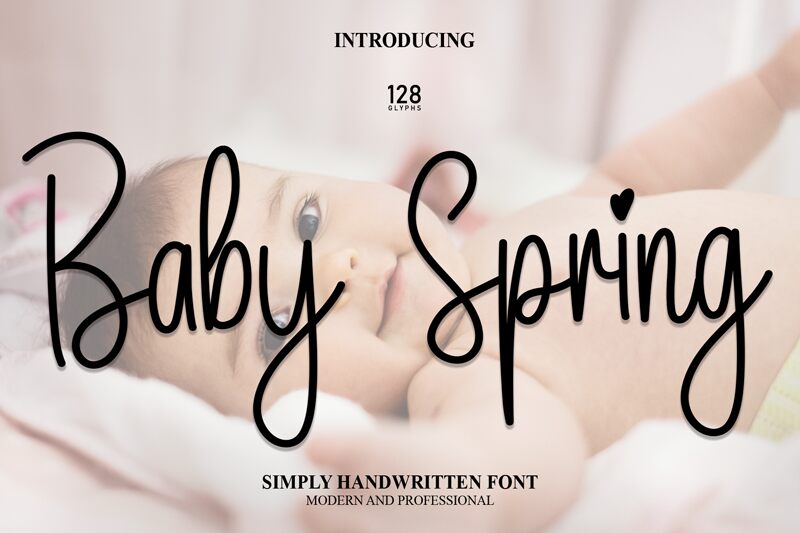
Baby Spring
Baby Spring, a delightful creation by Scratchones, exudes a sense of freshness and whimsy that can only be captured by the most sincere handwritten strokes. Its light weight lends an airy, delicate touch to the design, making it as fleeting and gentle as a spring breeze. The playful curves and flowing connections between letters mimic the authenticity of personal handwriting, infusing every word with personality and warmth.
Perfect for invitations, greeting cards, and branding projects that require a touch of intimacy and charm, Baby Spring invites your audience into a world crafted with carefree elegance. This font's aesthetic appeals to those seeking to convey softness and approachability in their designs while maintaining legibility.
Embrace the creative potential of Baby Spring for an array of applications where you wish to impart lightheartedness without sacrificing sophistication. Whether it's evoking the laughter of sunny days or capturing the tenderness of a handwritten note, this font is poised to add an enchanting flair to your next project.